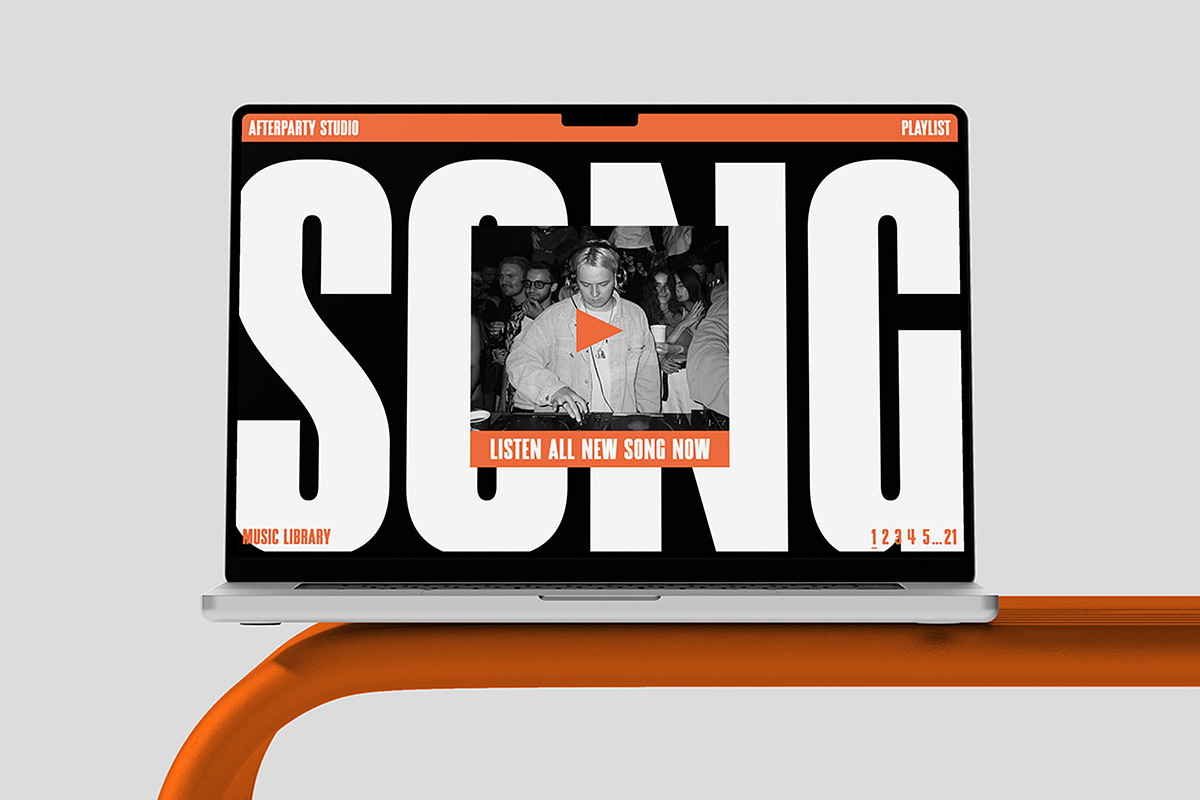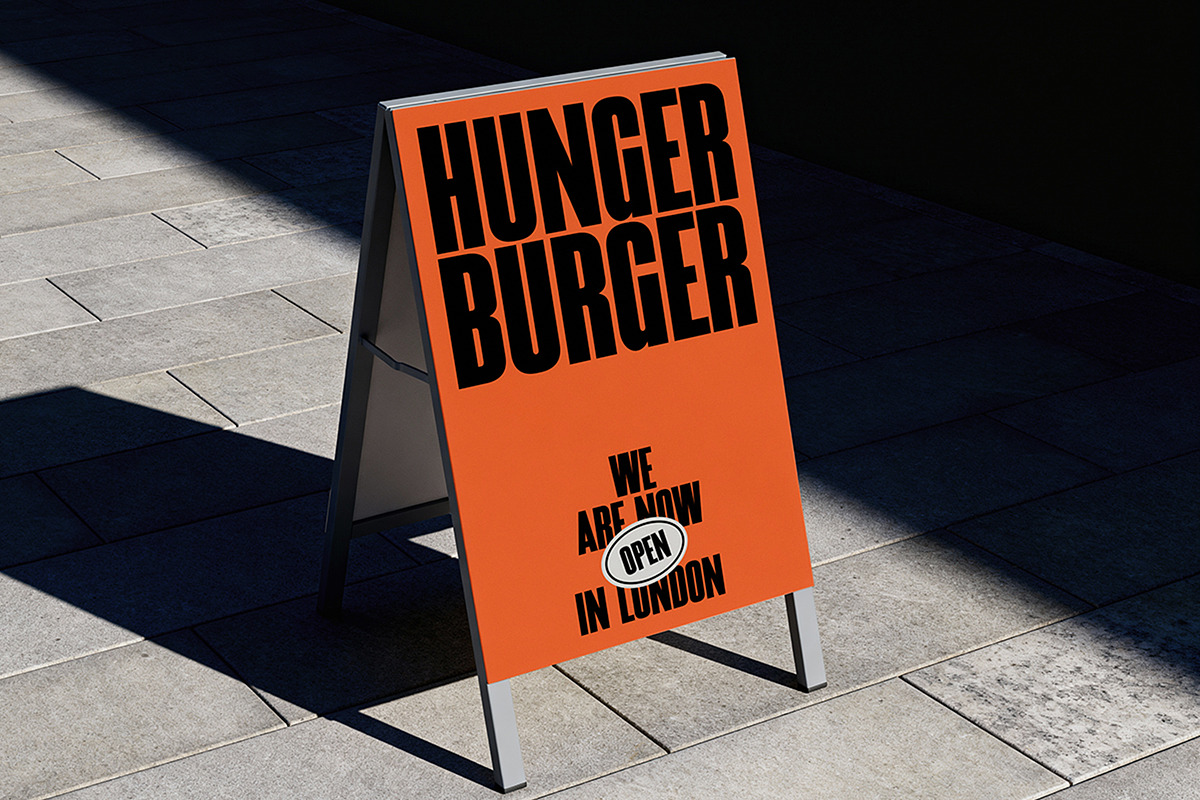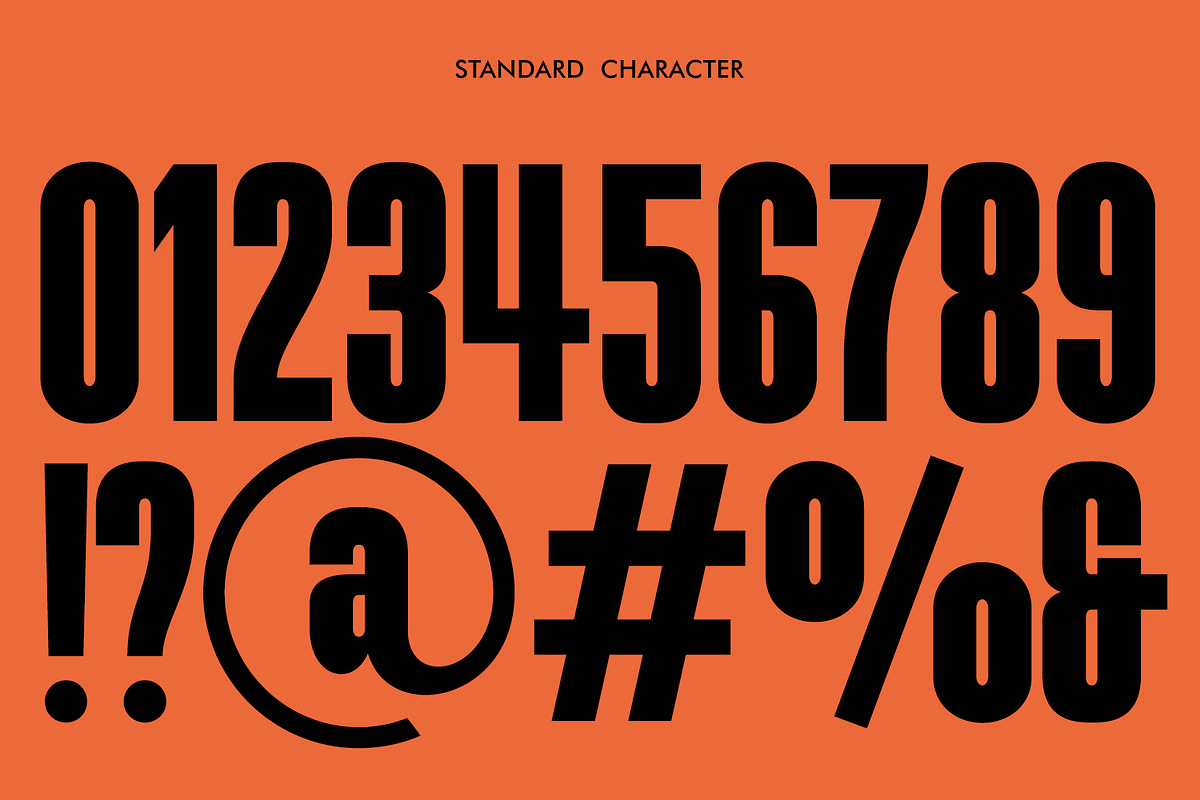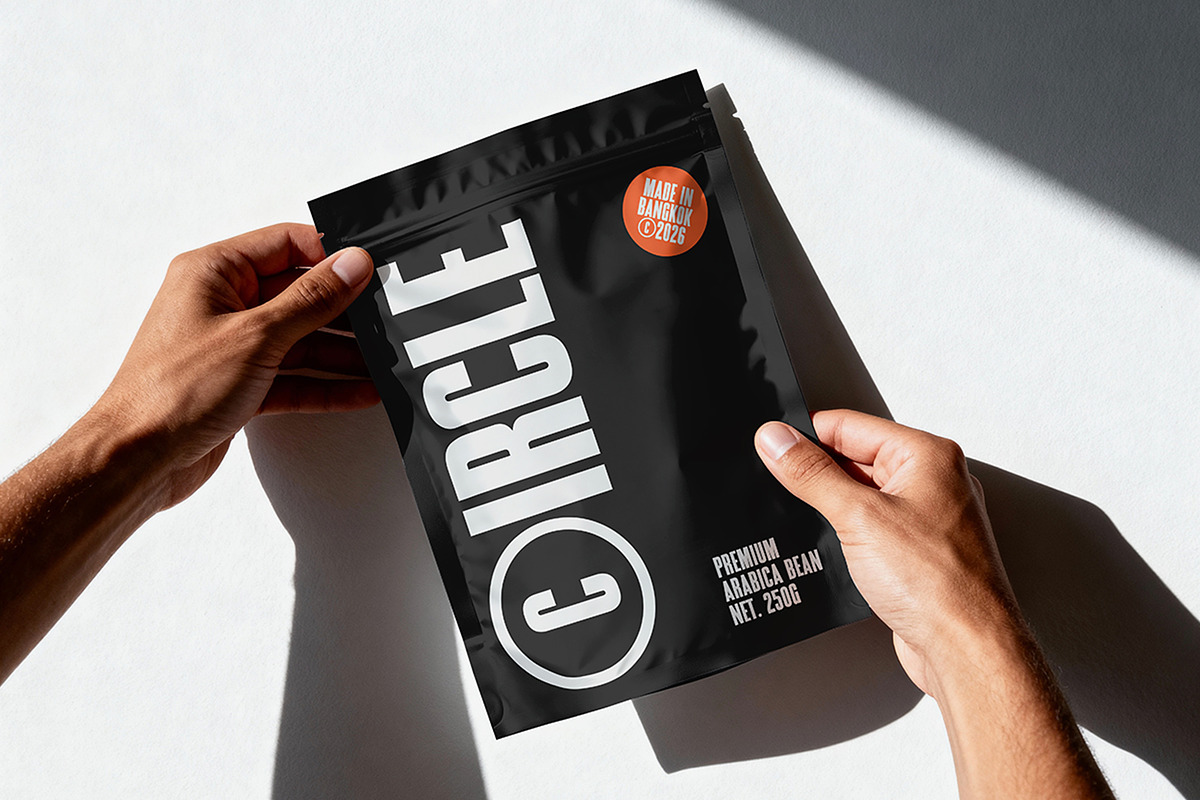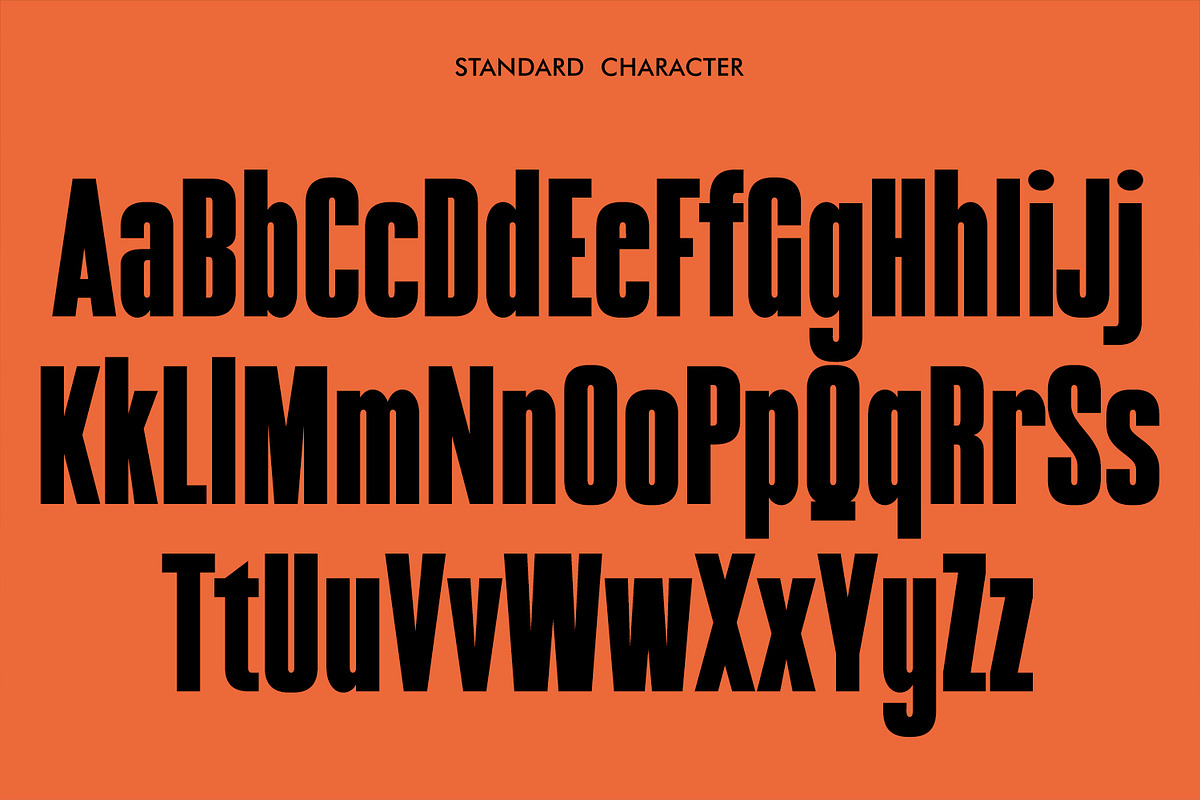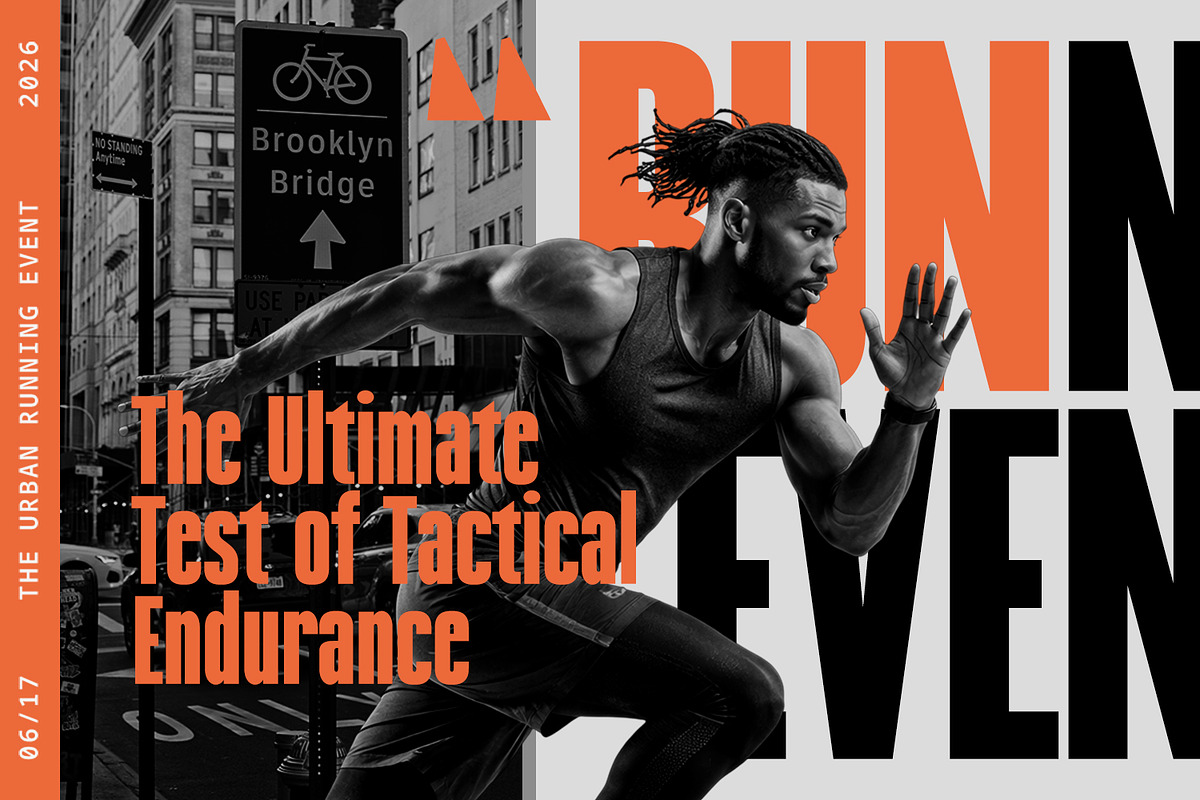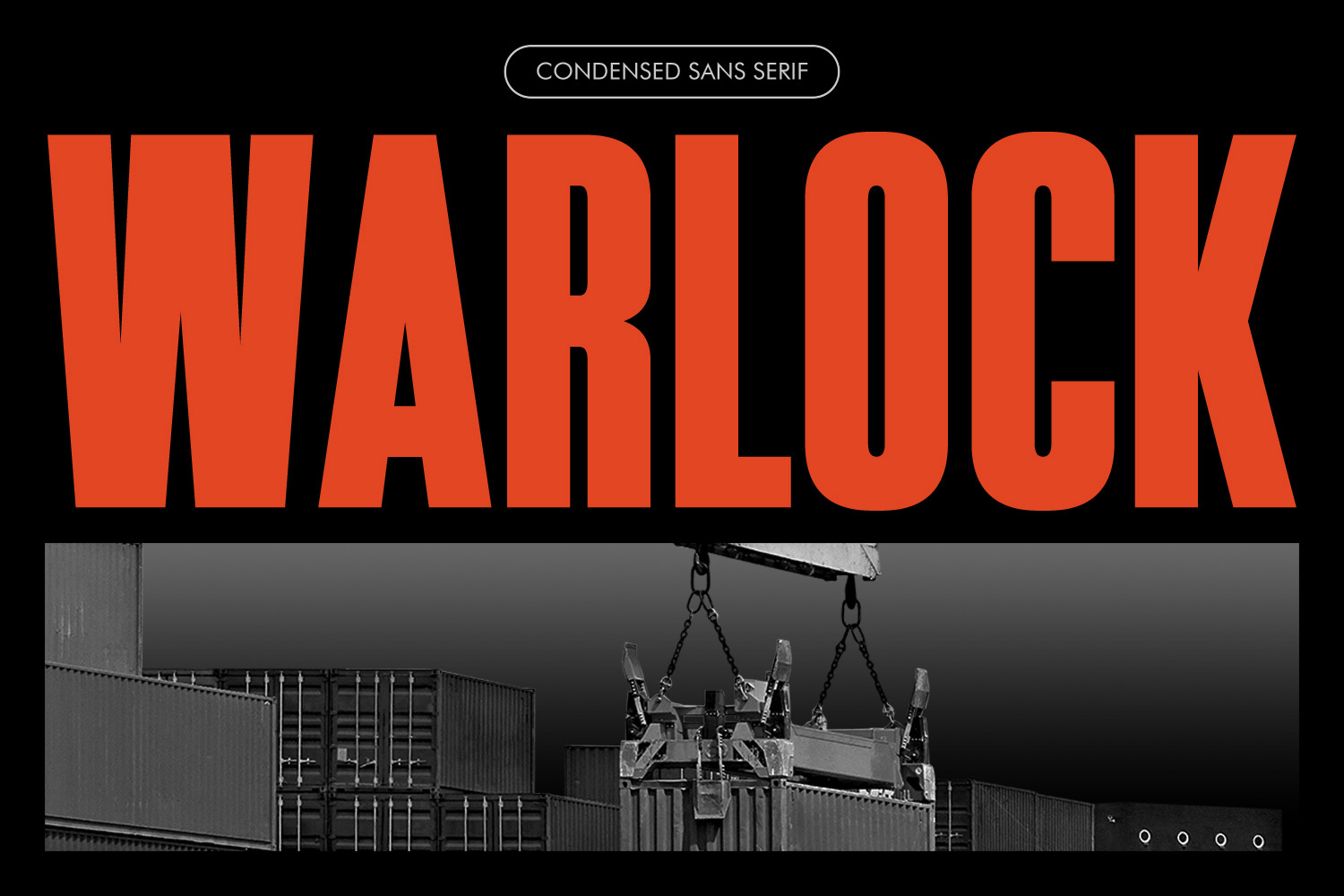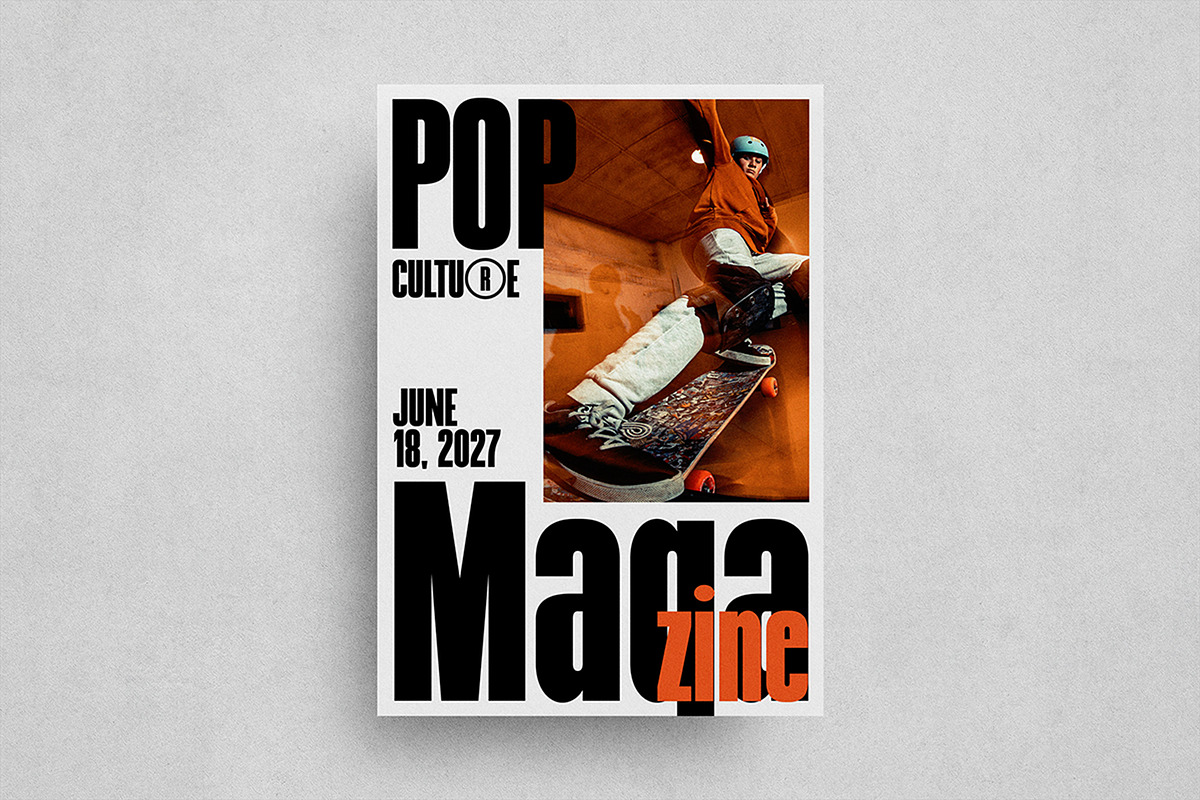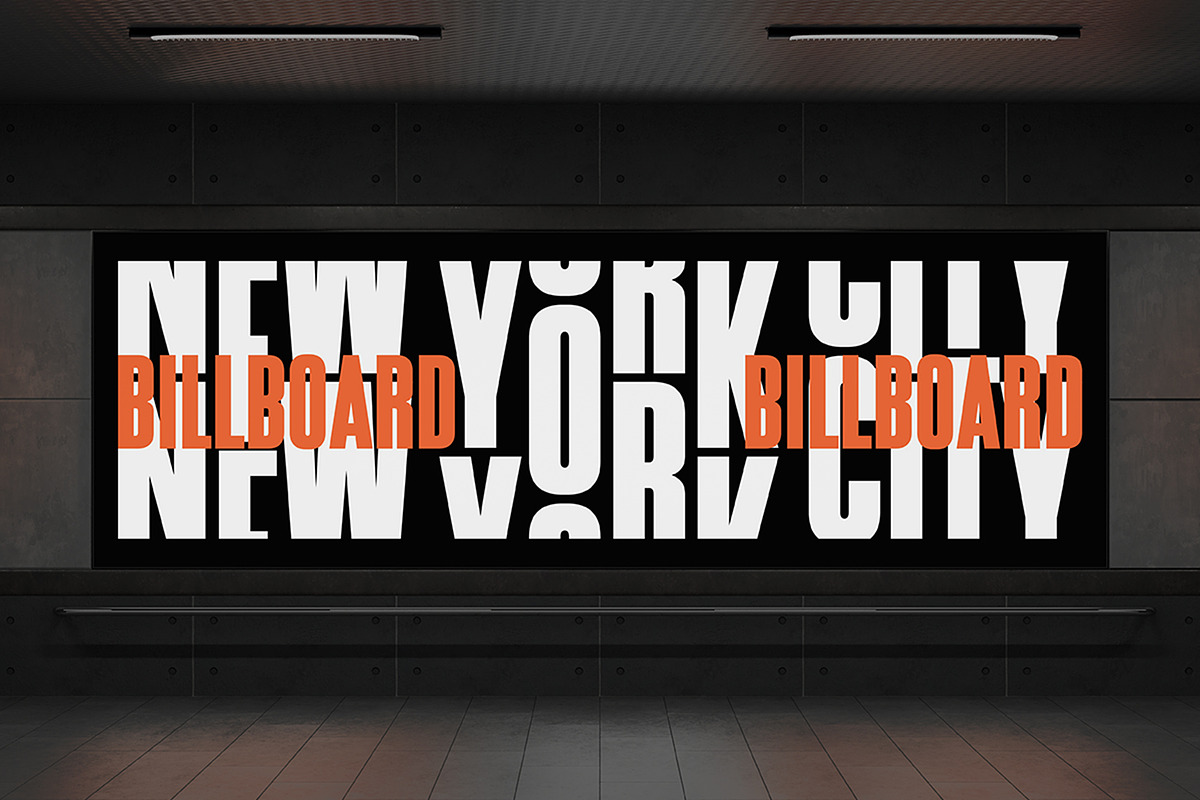
Warlock - Condensed Font
Warlock – Condensed Display Font
Warlock is a bold condensed display font designed to deliver strong visual impact with a sleek and space-efficient form. With its narrow proportions and sharp structure, Warlock creates a powerful typographic presence while maintaining clarity and readability.
Built for modern display use, Warlock combines tight spacing, tall letterforms, and clean lines to produce a striking and professional look. Its condensed style makes it perfect for designs where space is limited but visual impact is essential.
Warlock excels in high-impact applications such as posters, headlines, logos, branding, signage, and editorial layouts. The compact letterforms allow you to fit more text into smaller spaces without losing legibility, making it ideal for bold titles and attention-grabbing compositions.
Whether you're working on modern branding, sports graphics, advertising campaigns, or magazine covers, Warlock delivers a confident and stylish typographic voice that stands out.
Condensed Display Font
Narrow letterforms designed for space efficiency and impact.
Bold & Modern Style
Clean lines with a strong visual presence.
High Readability
Optimized for headlines and large typography.
Space-Saving Design
Perfect for tight layouts and compact compositions.
Versatile Usage
Suitable for both print and digital design.
Extended characters for international use.
• Posters & Headlines
• Logo Design & Branding
• Editorial & Magazine Layouts
• Advertising Campaigns
• Signage & Banners
• Sports & Event Graphics
• Packaging Design
• Social Media Visuals
Make Every Space Count
If you're looking for a typeface that combines bold impact with compact efficiency, Warlock is the perfect choice. Its condensed structure and modern style make it ideal for creating strong, clean, and attention-grabbing designs.